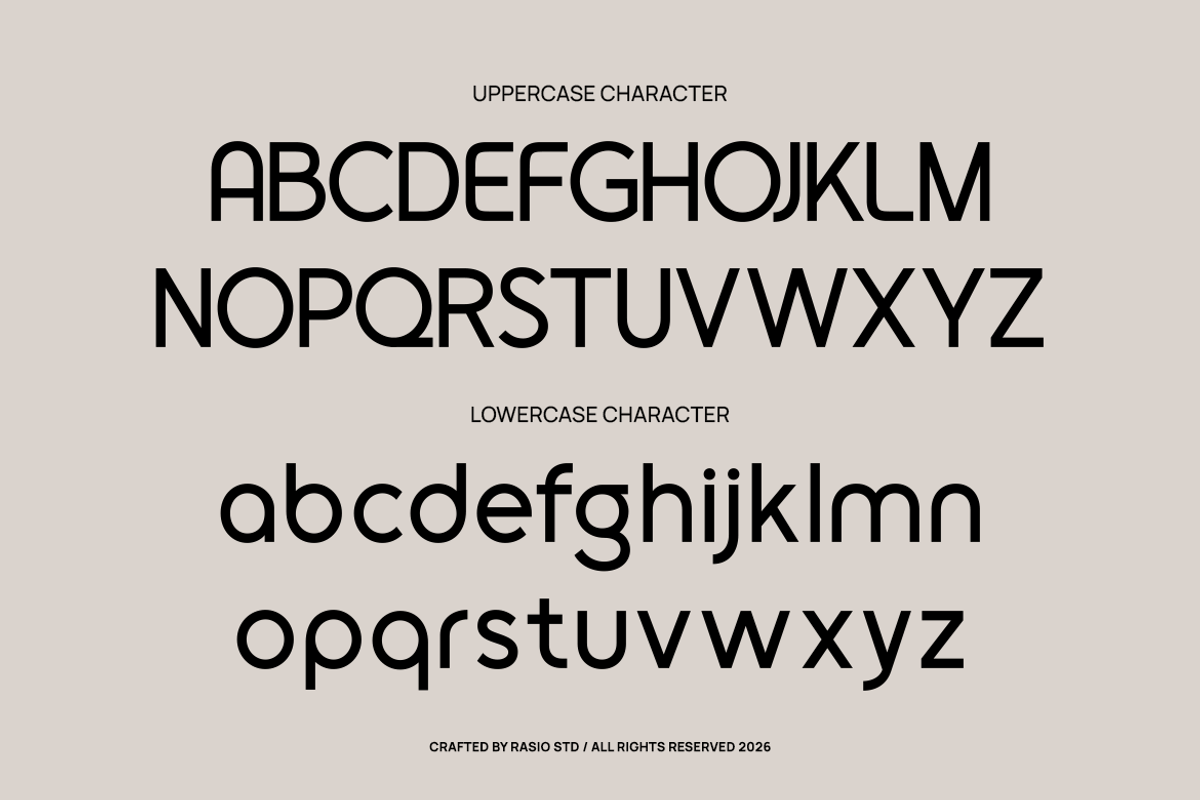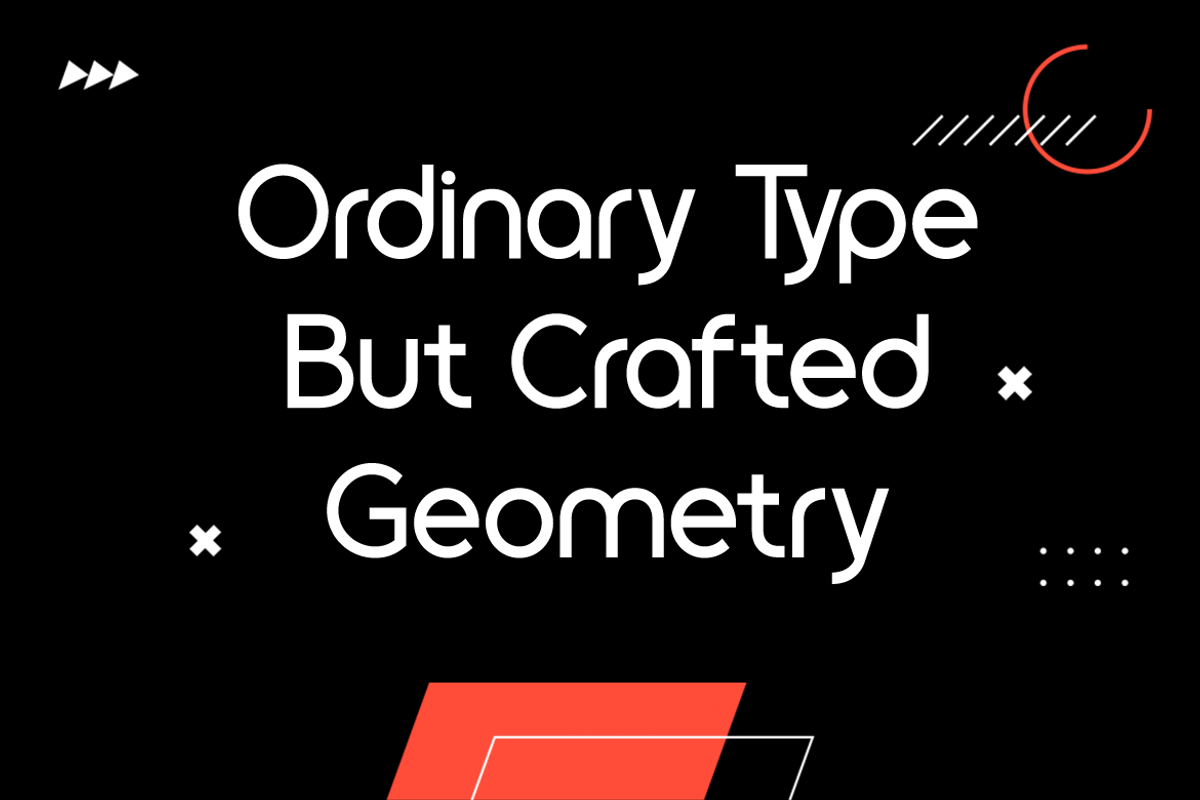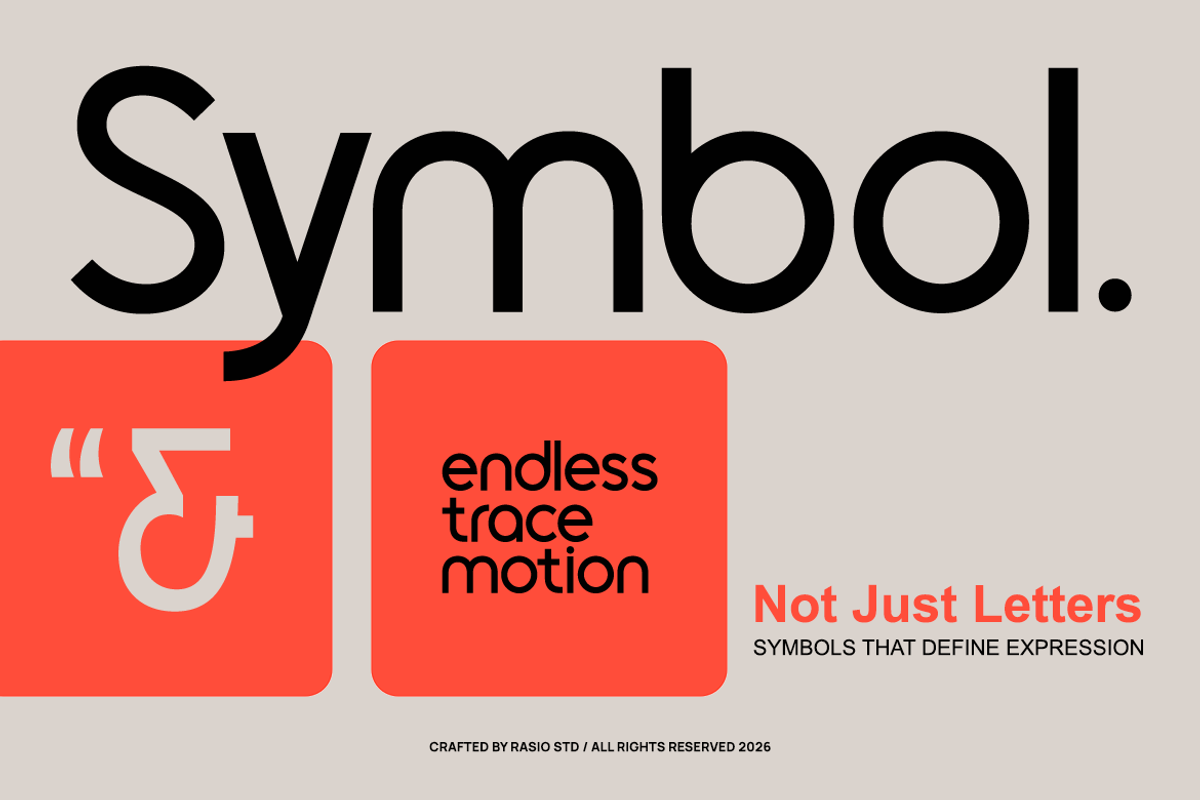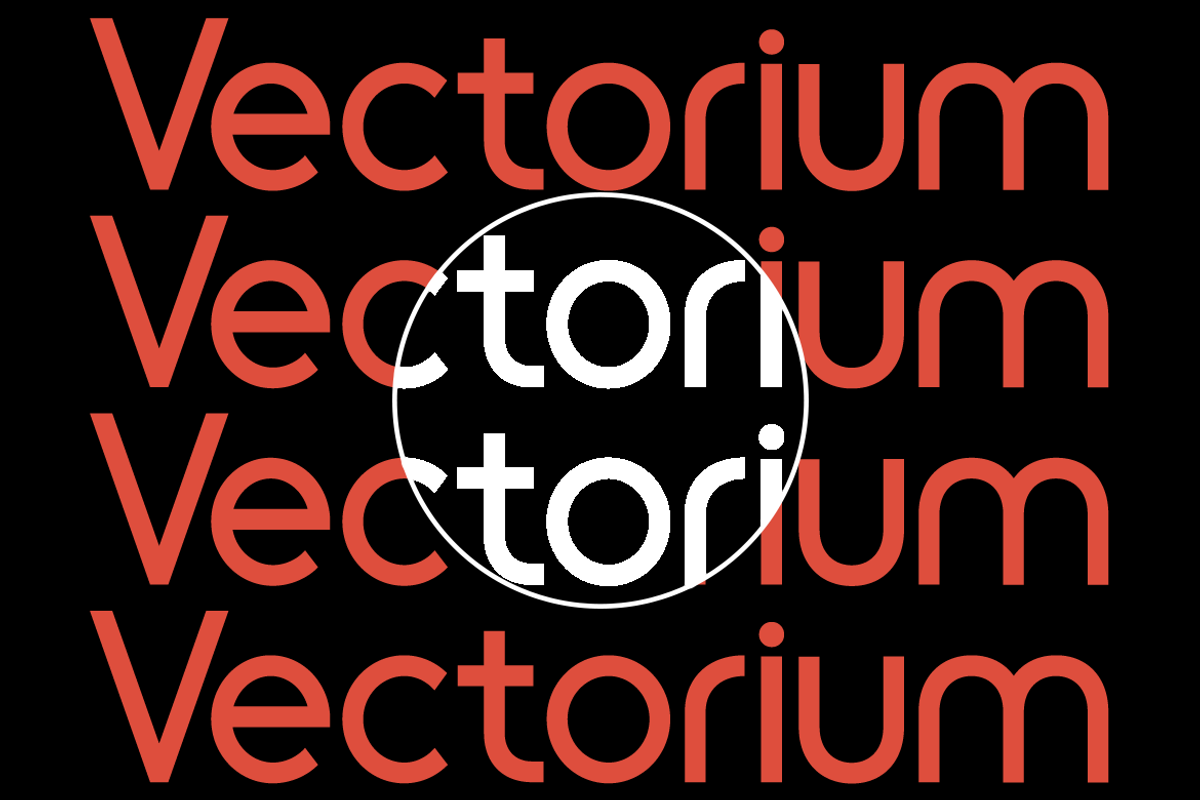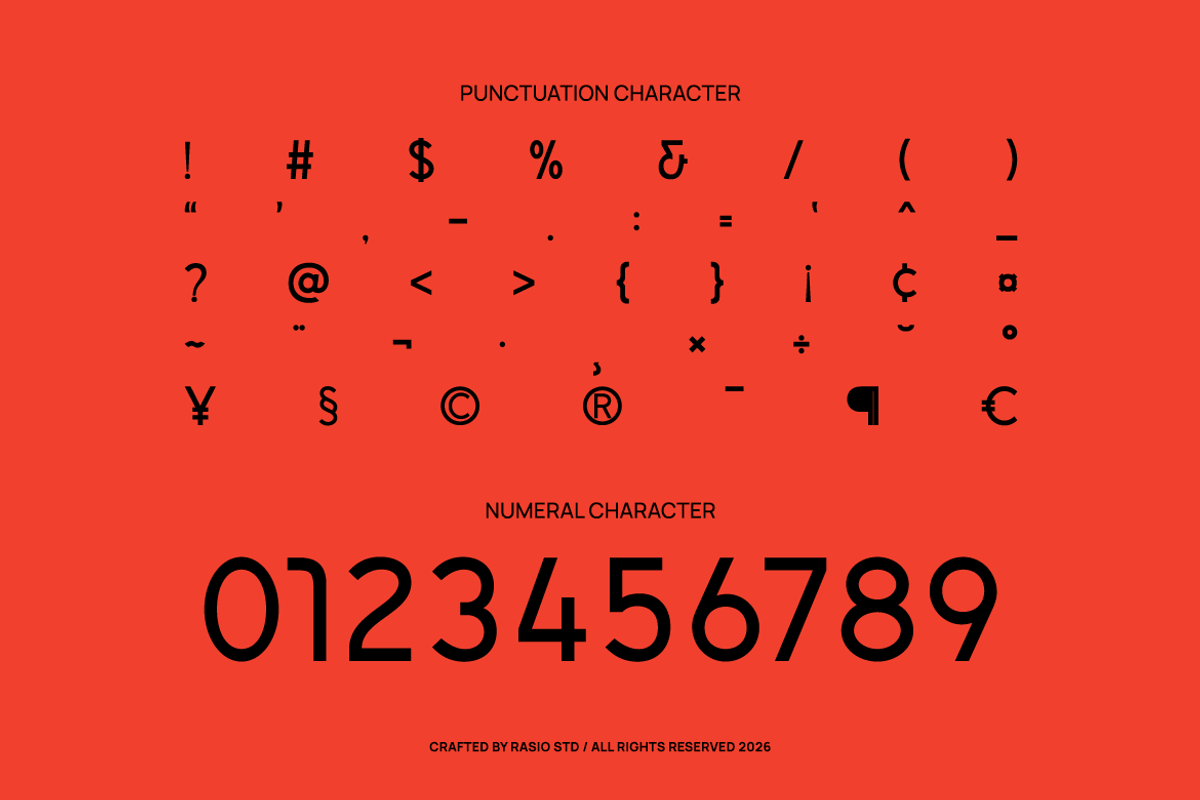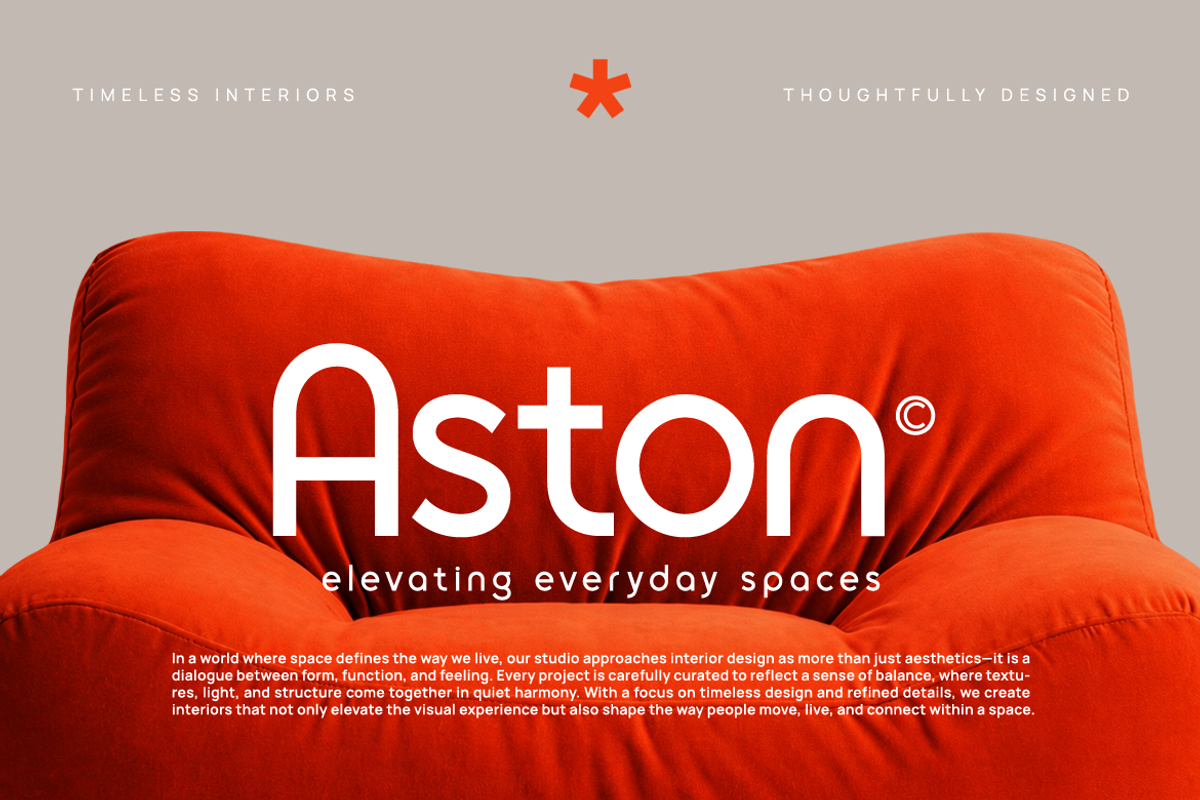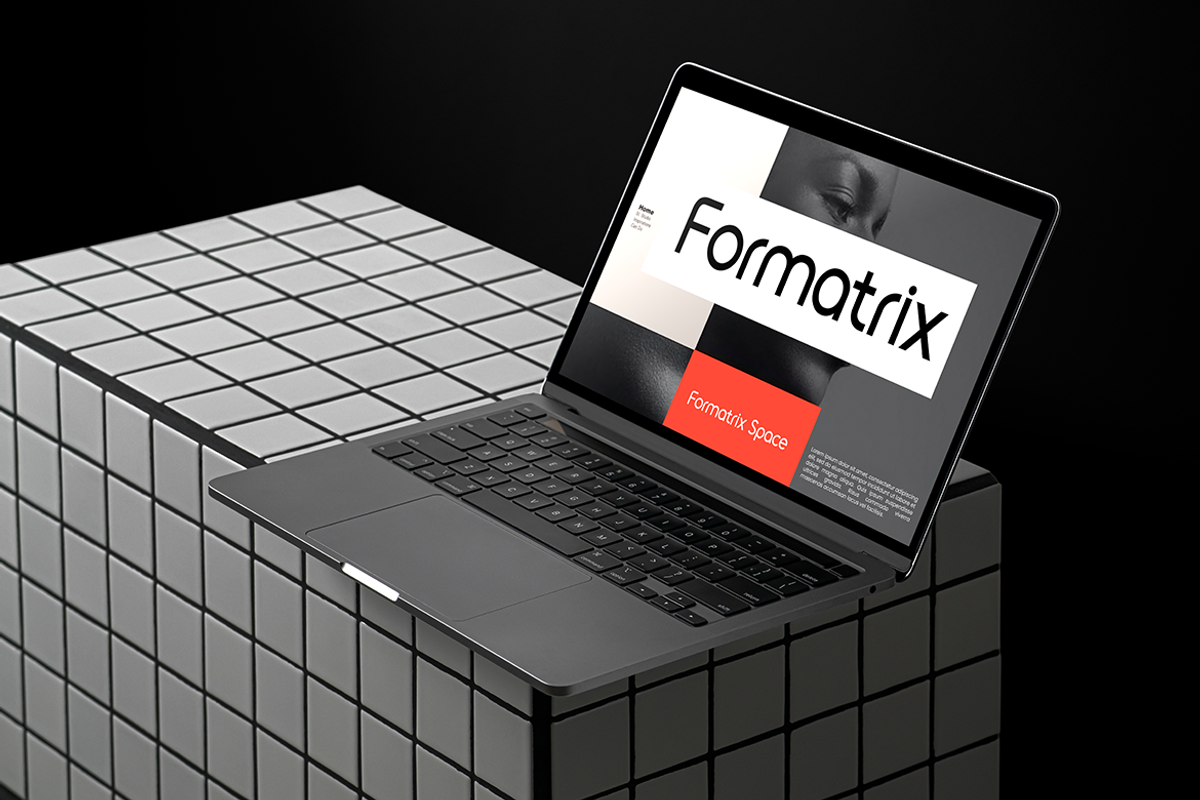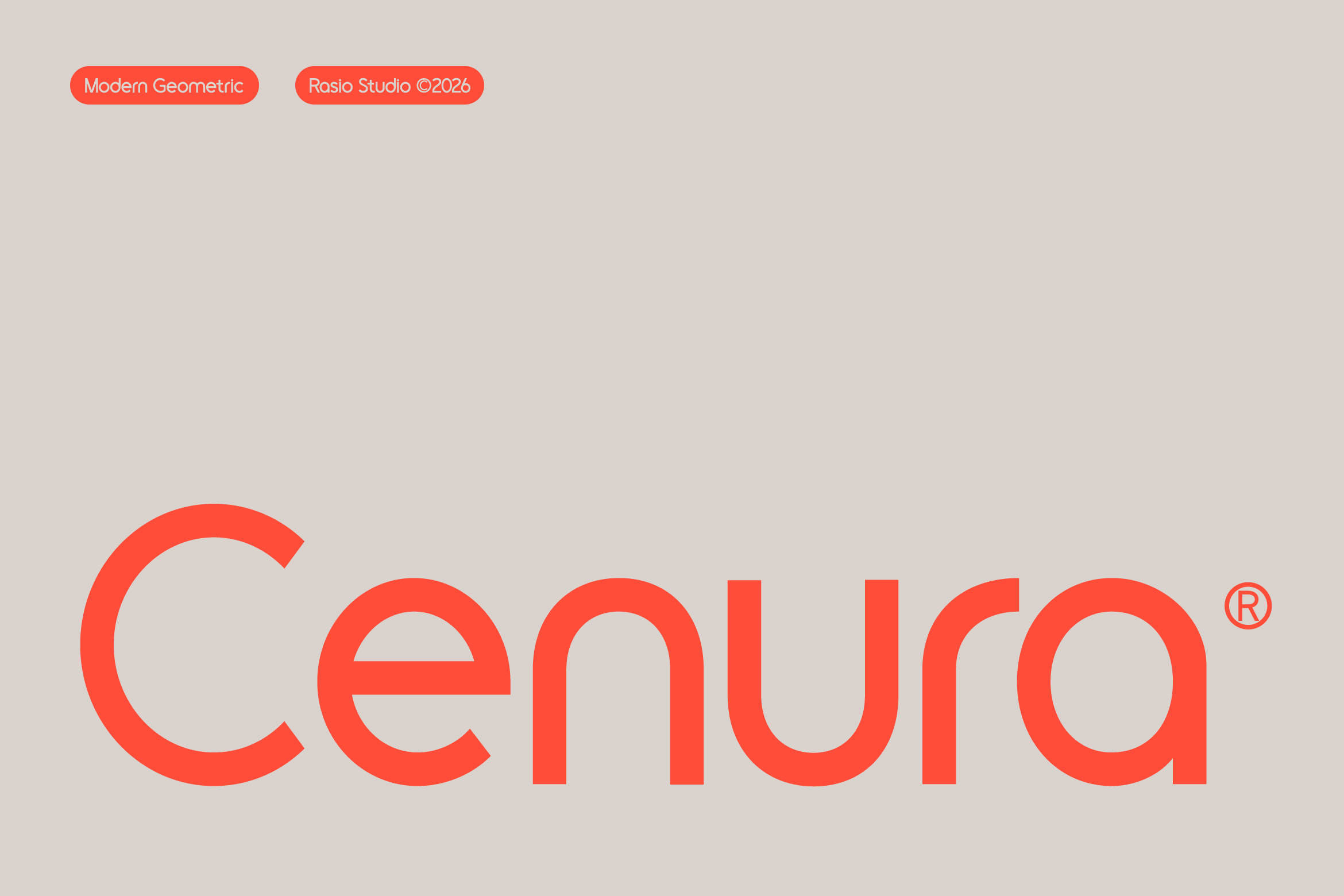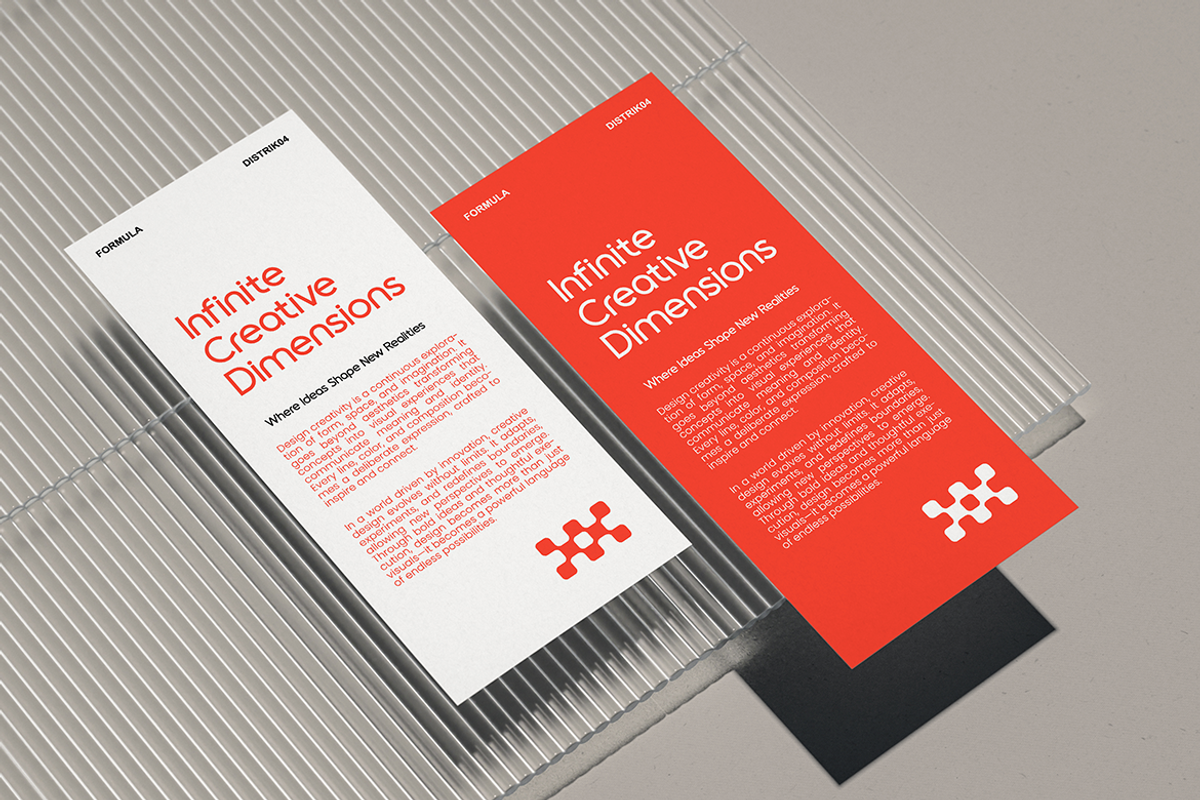
Cenura Modern Geometric Sans Font
Cenura is a modern geometric sans serif typeface featuring clean lines, balanced proportions, and a minimalist visual structure. The font includes complete uppercase and lowercase characters, numerals, and a wide range of punctuation, ensuring versatility across various design needs. Built with a strong geometric foundation, it delivers clarity and precision for both digital and print applications.
This font is highly relevant for modern design projects that prioritize clarity, structure, and professionalism, such as corporate branding, tech startups, UI/UX design, presentations, and editorial layouts. Its geometric and minimalist style ensures strong readability and a clean visual identity across both digital and print media.
- Clean geometric sans serif with minimal and modern construction
- Balanced circular forms combined with straight vertical stems
- Uniform stroke weight creating a strong and consistent appearance
- Open apertures and simple shapes for high readability
- Monoline structure with precise spacing for clarity across layouts
- Brand identity systems with modern and minimalist direction
- UI/UX interfaces, dashboards, and tech product designs
- Editorial layouts, magazines, and clean typography compositions
- Product packaging and labels with simple, contemporary aesthetics
- Social media templates and digital marketing visuals with a sleek look